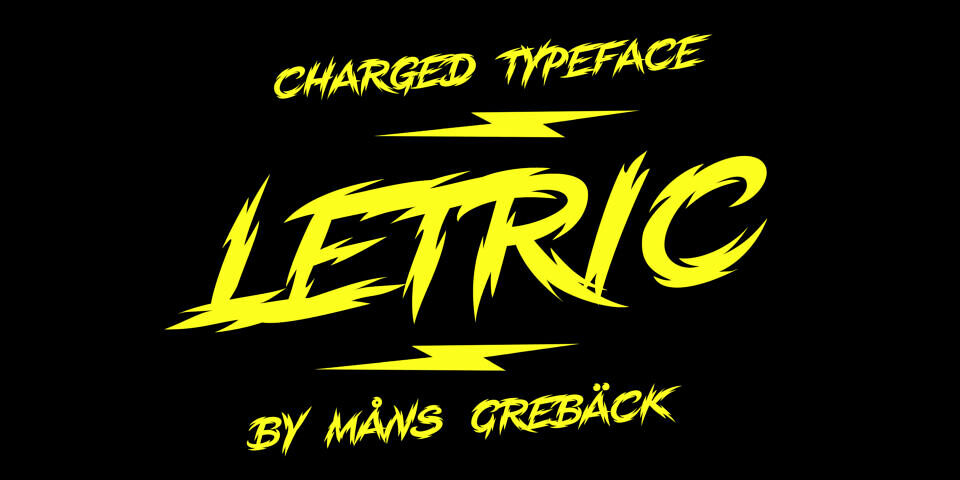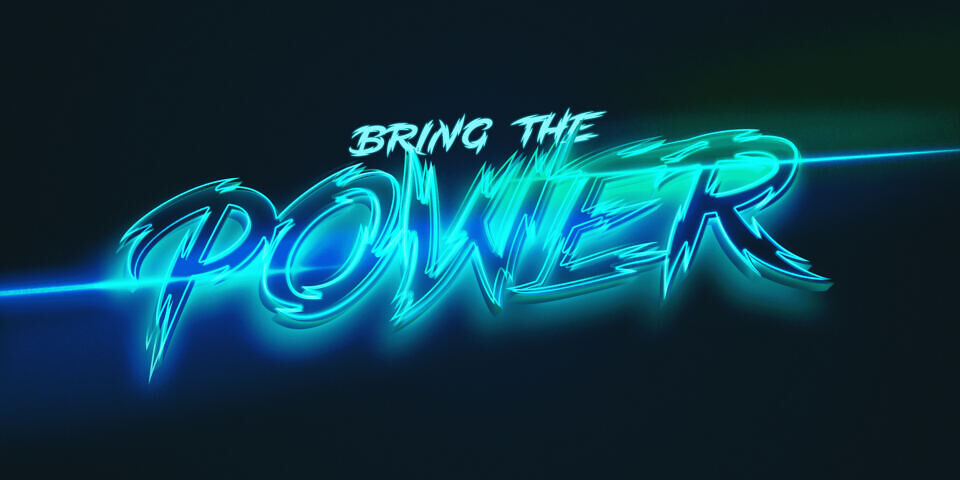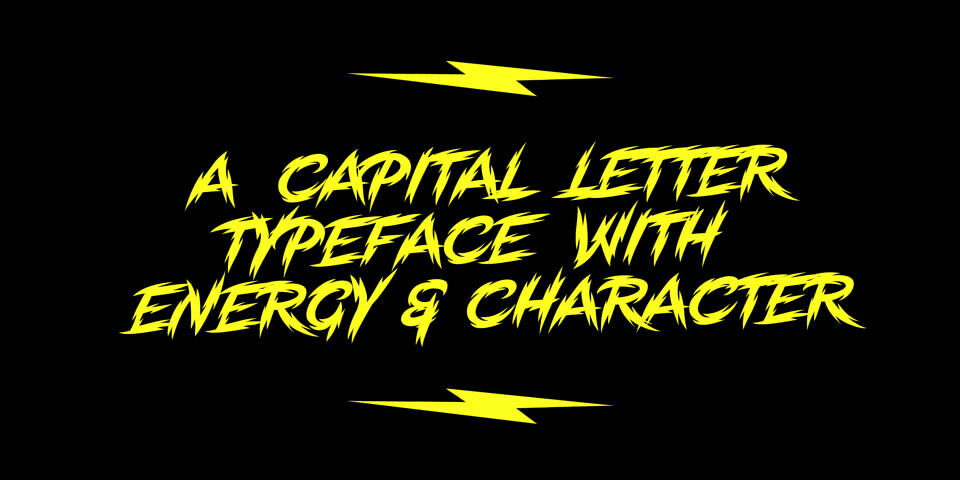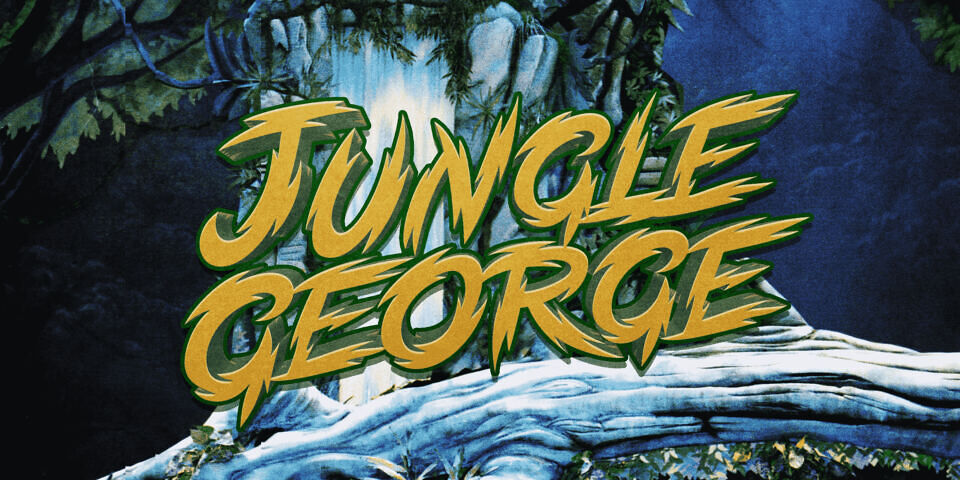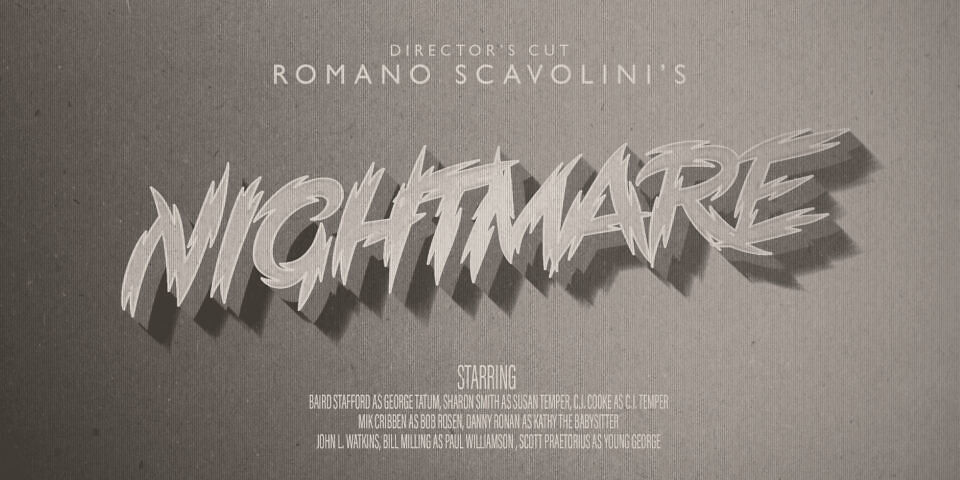
Letric Font
Letric is a high-energy capital typeface with traits of a brush comic title. It has rough and cut edges, electric in nature but with smooth curves. The strokes are reminiscent of a tiger’s skin, making for a great jungle or wildlife font.
Used in the right context, it fits perfectly as a vintage thriller type. This cartoon sans-serif is slanted/italic as default but also comes with a professional upright style.
Designed by: Måns Grebäck